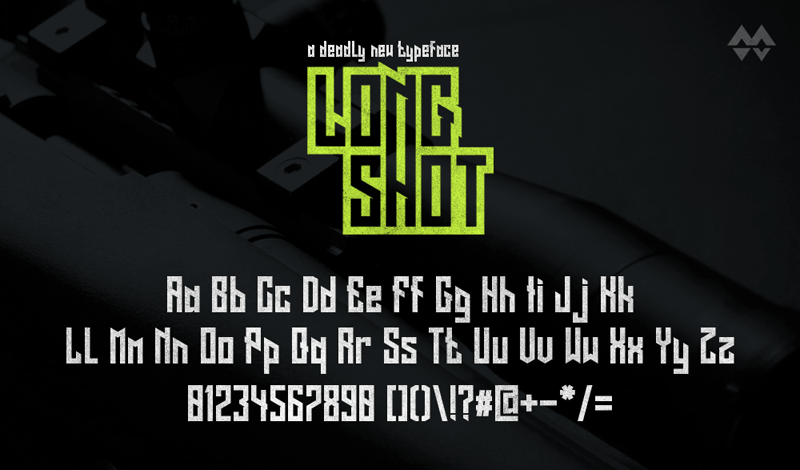
Font name: | Long Shot |
Author: | MattyDeCesare |
Long Shot is a deadly new new display typeface with a bold, distinctive design. Designed for titles, headers, banners etc. The font includes uppercase, lowercase, numbers, and punctuation. |